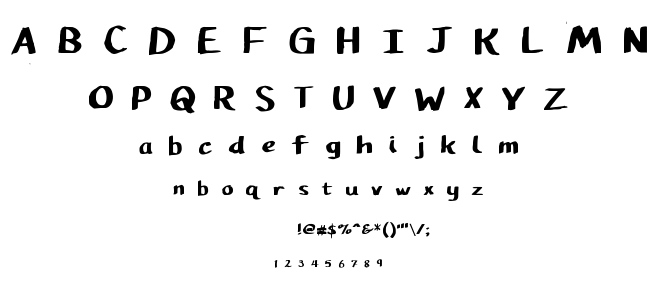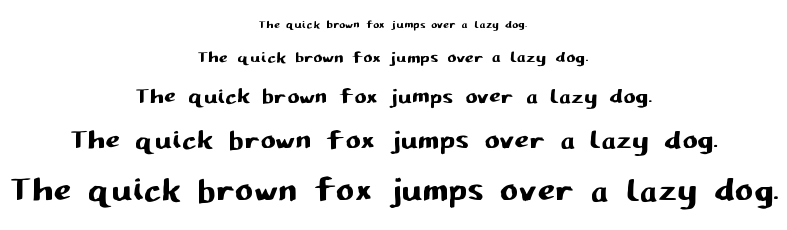
Pupil Calligraphic is an excellent 455 character font, excellent for both classroom and home-schooling use. It’s bolder and has more of a calligraphic style than our Pupil Light font.